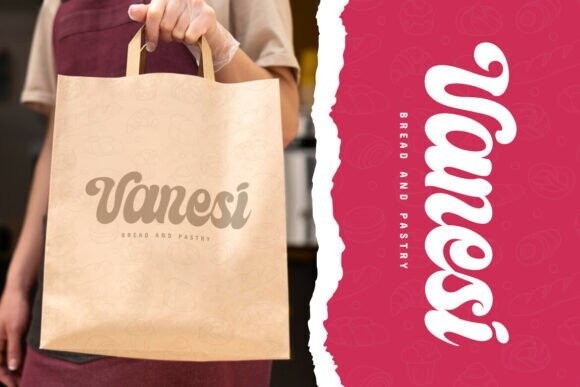
Fluffy Muffins Font
Fluffy Muffins Font, a sublimely soft- scripted typeface that infuses your work with an irresistibly warm and charming aura. This font’s tender curves and seamless, gliding letterforms cultivate a sense of handcrafted authenticity, offering a perfect sprinkle of coziness and affection to your projects. With its innate capability to lend an inviting and amiable atmosphere, Fluffy Muffins is a dream-come-true for projects like invitations, greeting cards, packaging, or even brand identities. Whether your design canvas is a quaint bakery, a lively children’s brand, or any project demanding a touch of playful softness, Fluffy Muffins promises to infuse your creations with good vibes, one character at a time.